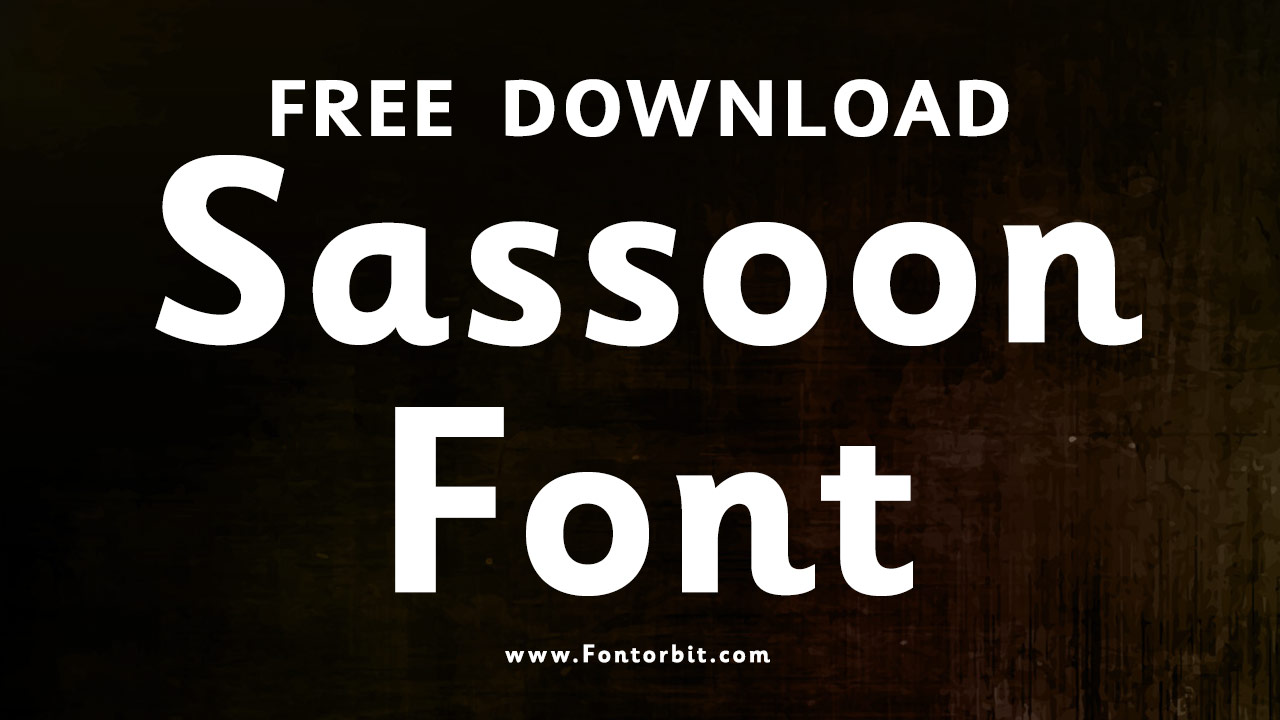
Sassoon-Williams designed the widely-recognized Sassoon Primary typeface. Originally published in 1995 by the Sassoon Williams Foundry, it is part of the Sassoon font family, which focuses on creating child-friendly, legible handwriting fonts. The Sassoon Primary font often supports early education and specifically helps teach children how to write and read.
Sassoon Font Family Includes
The Sassoon Primary font family offers a variety of styles and weights to cater to different educational needs. These typefaces ensure clarity and ease of reading and support young learners in developing neat handwriting skills.
- Sassoon Primary Regular
- Sassoon Primary Bold Italic
- Sassoon Primary Italic
- Sassoon Primary Medium
- Sassoon Primary Bold
- Sassoon Primary Medium Italic
Notable Uses Of Sassoon Primary
Educators primarily use the Sassoon Primary font in various contexts, including:
- School textbooks and worksheets for early childhood education.
- Teaching materials aimed at improving children’s handwriting skills.
- Signs, posters, and other educational tools in classrooms.
The Sassoon Primary font is ideal for:
- Early education environments, such as preschools and elementary schools.
- Educational books, children’s storybooks, and worksheets.
- Classroom displays and educational software aimed at young learners.
- Any design project where legibility and child-friendly aesthetics are important.
The Sassoon Primary font is an excellent choice for anyone looking to create materials aimed at young learners. Its legibility and design make it perfect for teaching children how to read and write, and its widespread use in educational materials attests to its effectiveness.
1.What Is The Sassoon Primary Font?
It helps children learn to read and write as a typeface designed for early education.
2.Where Is The Sassoon Primary Font Commonly Used?
Educators primarily use it in educational materials for young learners, such as textbooks and worksheets.
7.Is Sassoon Primary Easy To Read?
Yes, it is designed with legibility in mind, particularly for children learning to read.